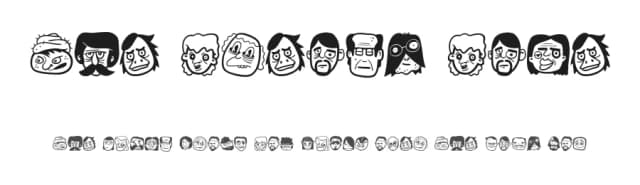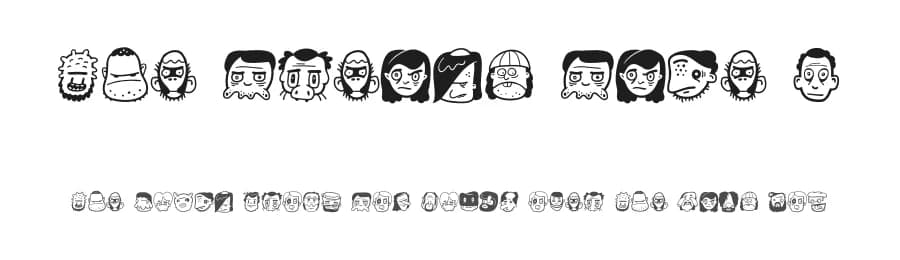
About The Freaky Face 2 Font
The Freaky Face 2 is a dingbat font designed by Joaquim Marquès Nielsen. It includes 126 glyphs, a regular weight, OTF (CFF) format, and 127 languages. The Freaky Face 2 is free to download; check the license details on this page before commercial use. Dingbat fonts like The Freaky Face 2 work best for icons, ornaments, bullet points, and decorative accents.
The Freaky Face 2 Font is a versatile dingbats font that works for both headings and body text. Pair it with a contrasting sans-serif or serif font to add visual interest and a clear distinction between titles and body copy.